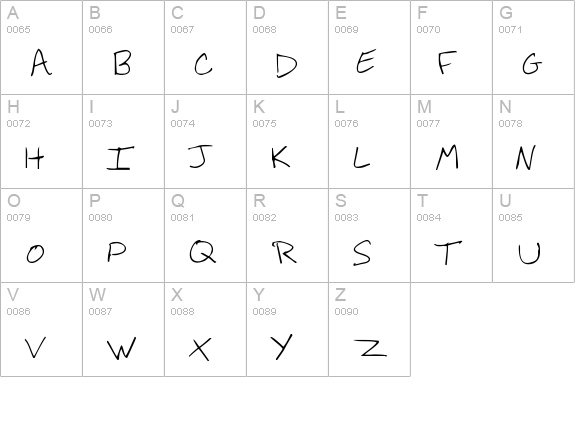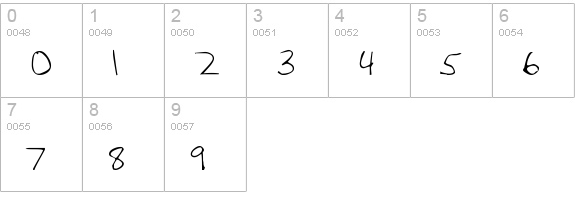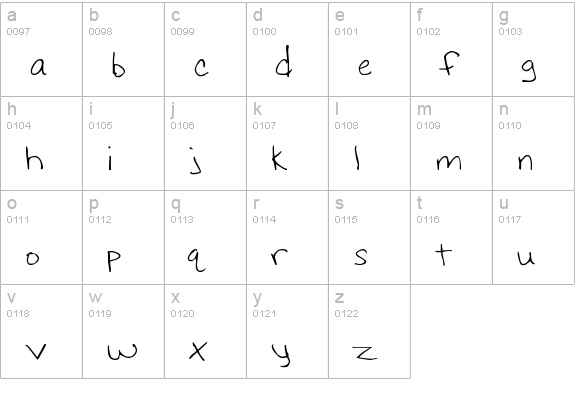
Hoffmanhand font is a charming and whimsical typeface that adds a touch of character to any design project. With its handwritten style and playful curves, this font is perfect for creating a warm and inviting atmosphere. Whether you're working on a greeting card, poster, or logo, Hoffmanhand font will bring a unique flair to your work. Best of all, Hoffmanhand font is available for free download at FontsMarket.com. So you can easily add this delightful font to your collection without breaking the bank. Don't miss out on the opportunity to enhance your designs with the creative flair of Hoffmanhand font - download it today and let your creativity soar!